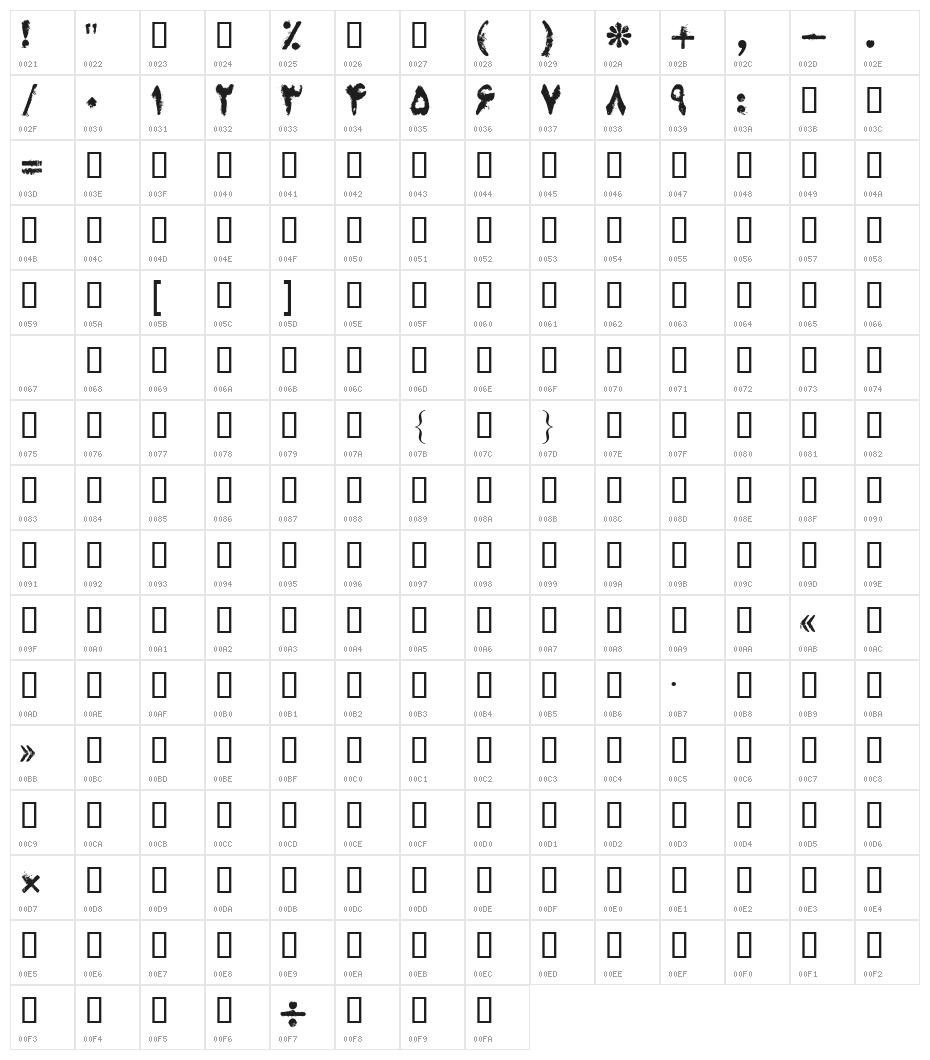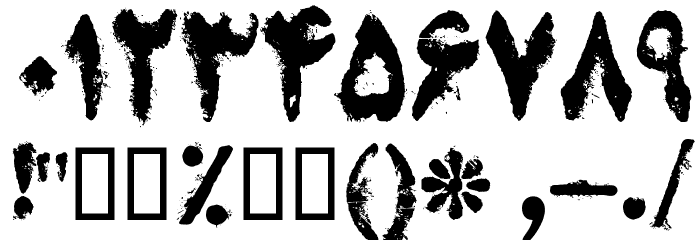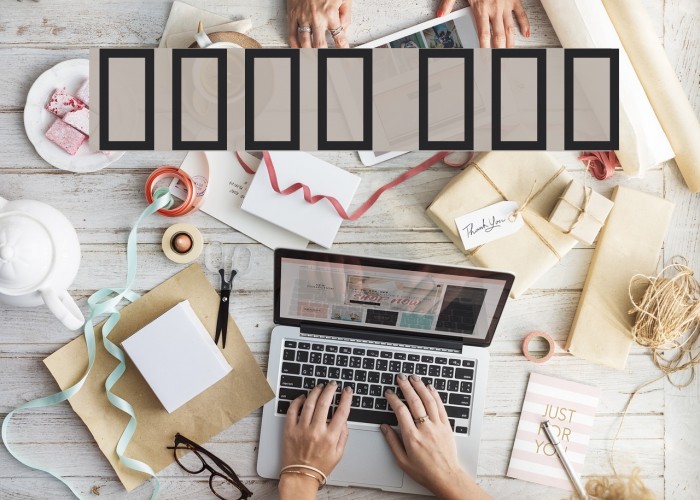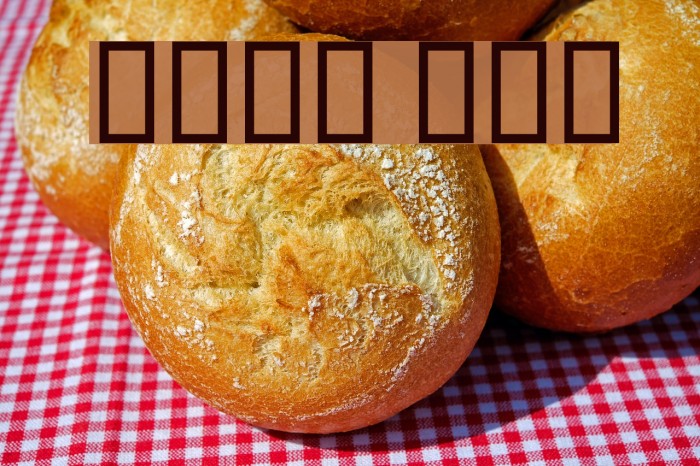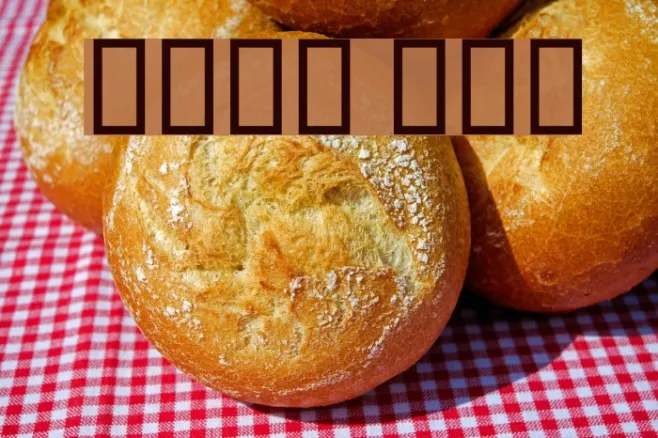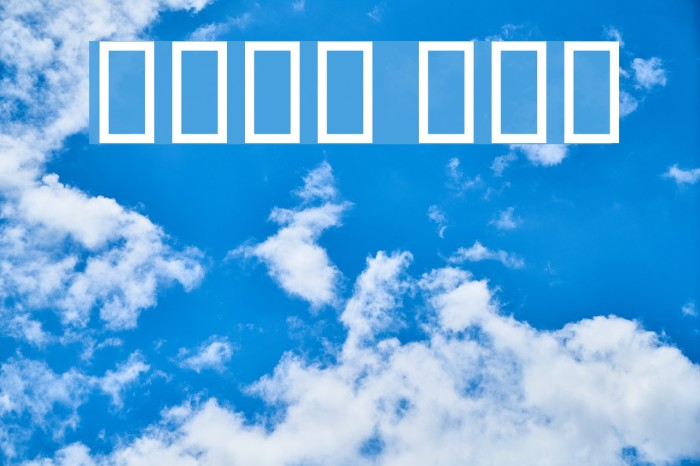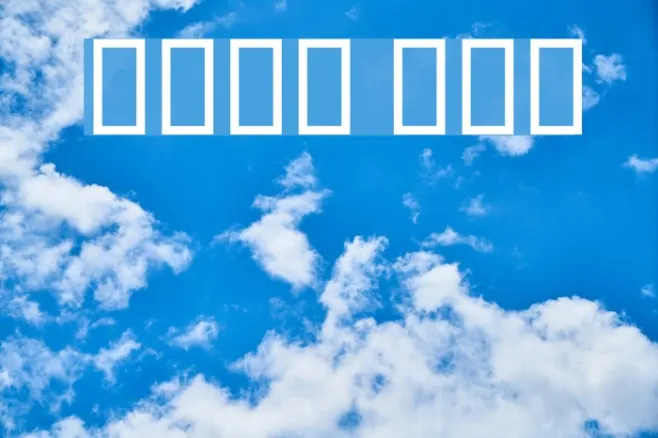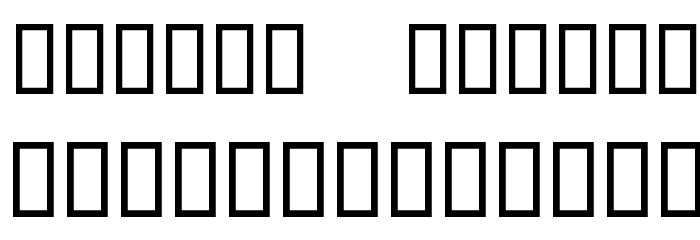
Titr Old Font
Titr Old Description
This font features a bold and rugged style, characterized by its distressed and grungy appearance. The letters and numbers have a textured, worn-out look, giving them a unique and edgy vibe. The font's design is reminiscent of urban street art or graffiti, making it stand out with its raw and expressive nature. The characters are bold and impactful, with irregular edges and a hand-crafted feel. This style is perfect for projects that require a strong visual statement, adding a touch of rebellion and creativity to any design.
| Overall Style | Grunge, Urban, Edgy |
| Use Case | Logos, Posters, Headlines |
| Proposed Projects | Ideal for album covers, posters, streetwear branding, and edgy graphic designs. |